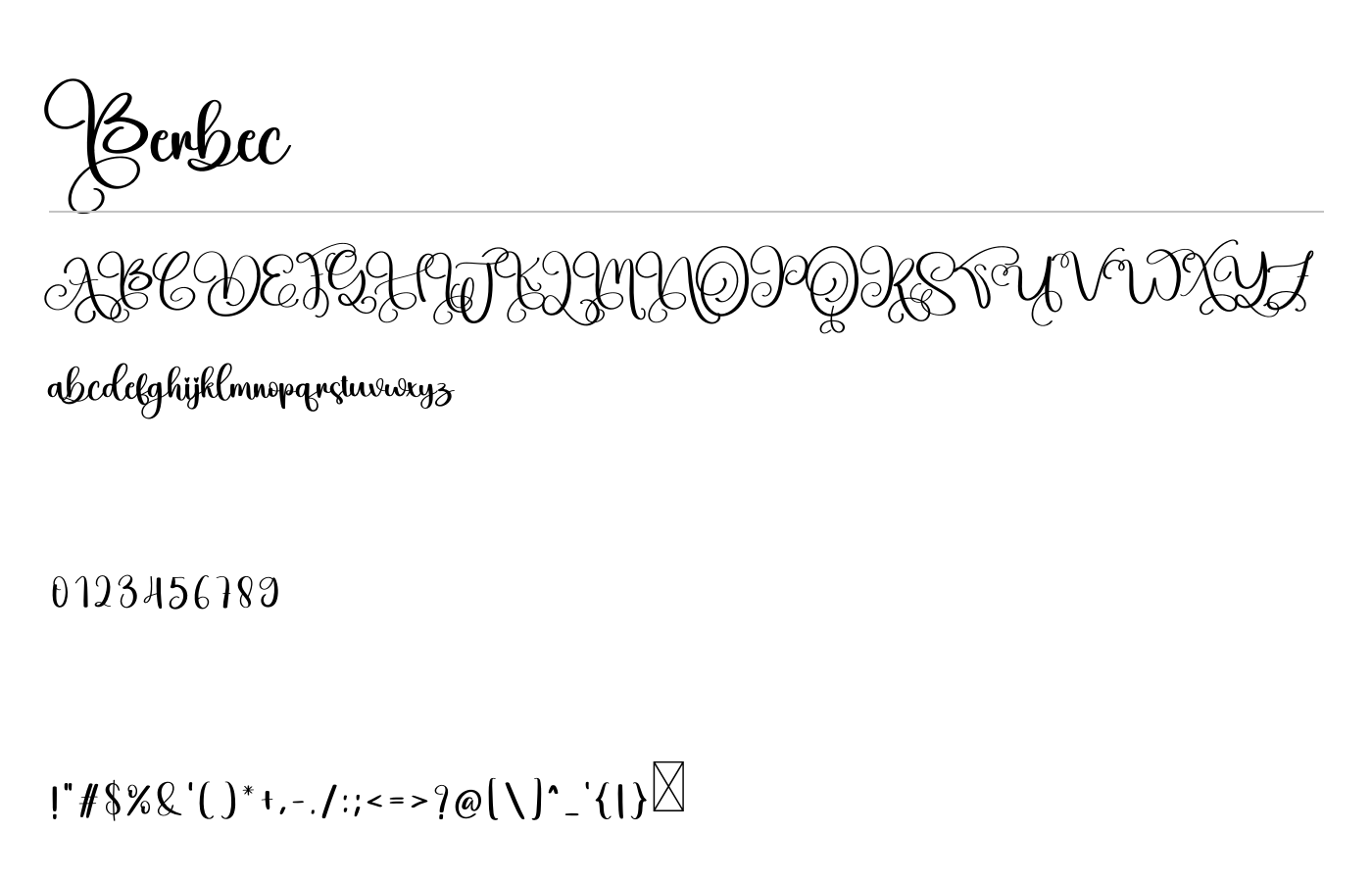
Berbec is a decorative script font featuring elegant, flowing letterforms with intricate loops and curls, especially in the uppercase characters. Its delicate strokes and playful charm make it ideal for sophisticated, feminine branding, invitations, and creative projects where a touch of whimsy and elegance is desired. Best suited for logos, headlines, and decorative uses, Berbec adds a luxurious, handcrafted feel that stands out beautifully in stylish design contexts.